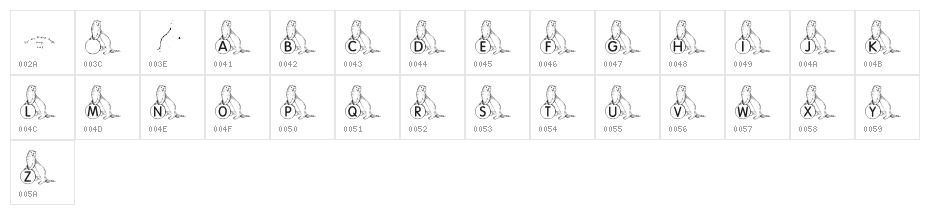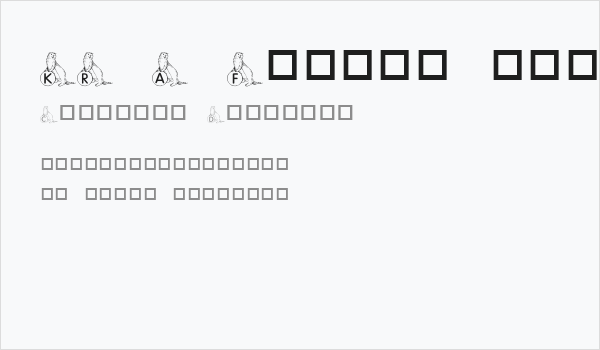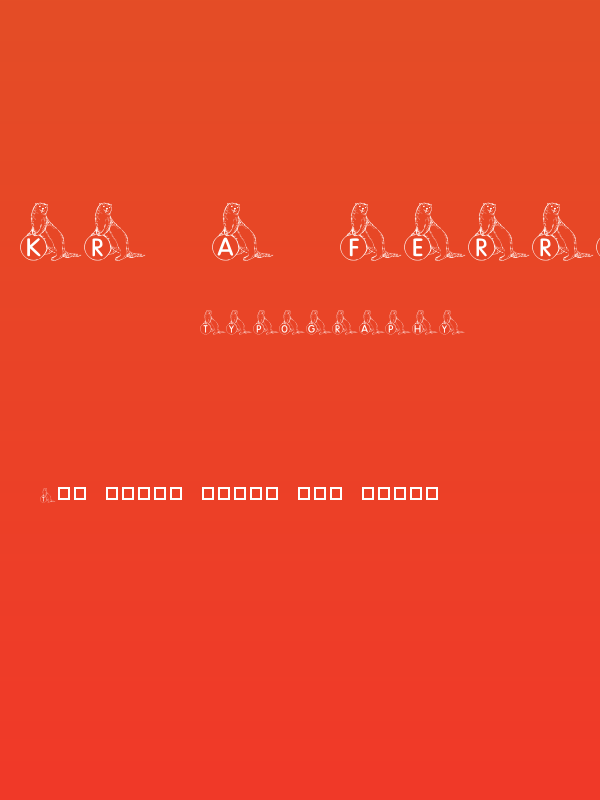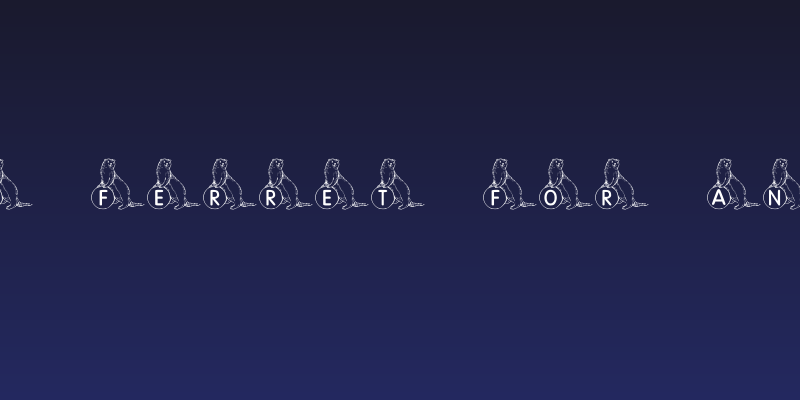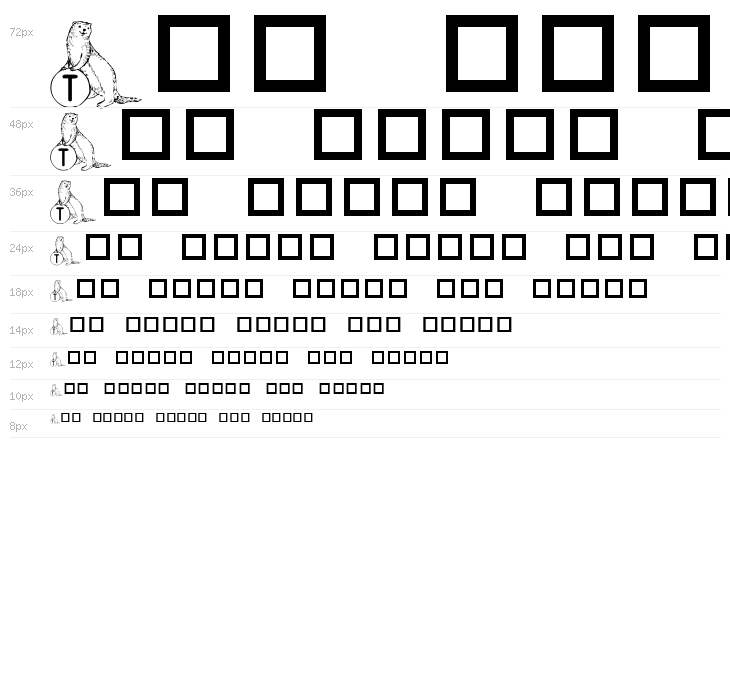
KR A Ferret for Angel Font
KR A Ferret for Angel Description
This playful and whimsical font features uppercase letters embedded within illustrations of ferrets. Each letter is uniquely integrated into the design, creating a charming and engaging visual experience. The font's decorative nature makes it ideal for projects that require a touch of fun and creativity. The ferret illustrations add a distinctive character, making it suitable for children's books, playful branding, or themed events. The font does not include lowercase letters, numbers, or special characters, focusing solely on the artistic representation of the uppercase alphabet.
| Overall Style | Whimsical |
| Proposed Projects | Ideal for children's books, playful branding, themed events, and creative posters. |